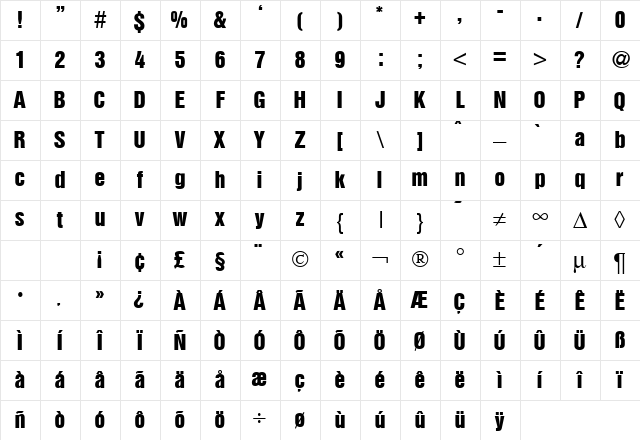
HegelInserat Bold Free Font
HegelInserat Bold
HegelInserat Family
Design Context for HegelInserat
HegelInserat is a composed and adaptable typeface that performs quietly and consistently across a wide range of design contexts. Its bold stroke weight gives it real presence on the page.